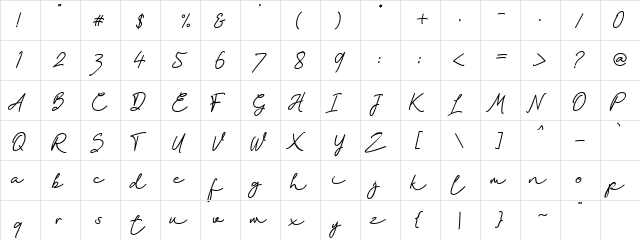
Epic Kantona Kantona
Design Context for Epic Kantona Typeface
Epic Kantona is a composed and adaptable typeface that performs quietly and consistently across a wide range of design contexts.